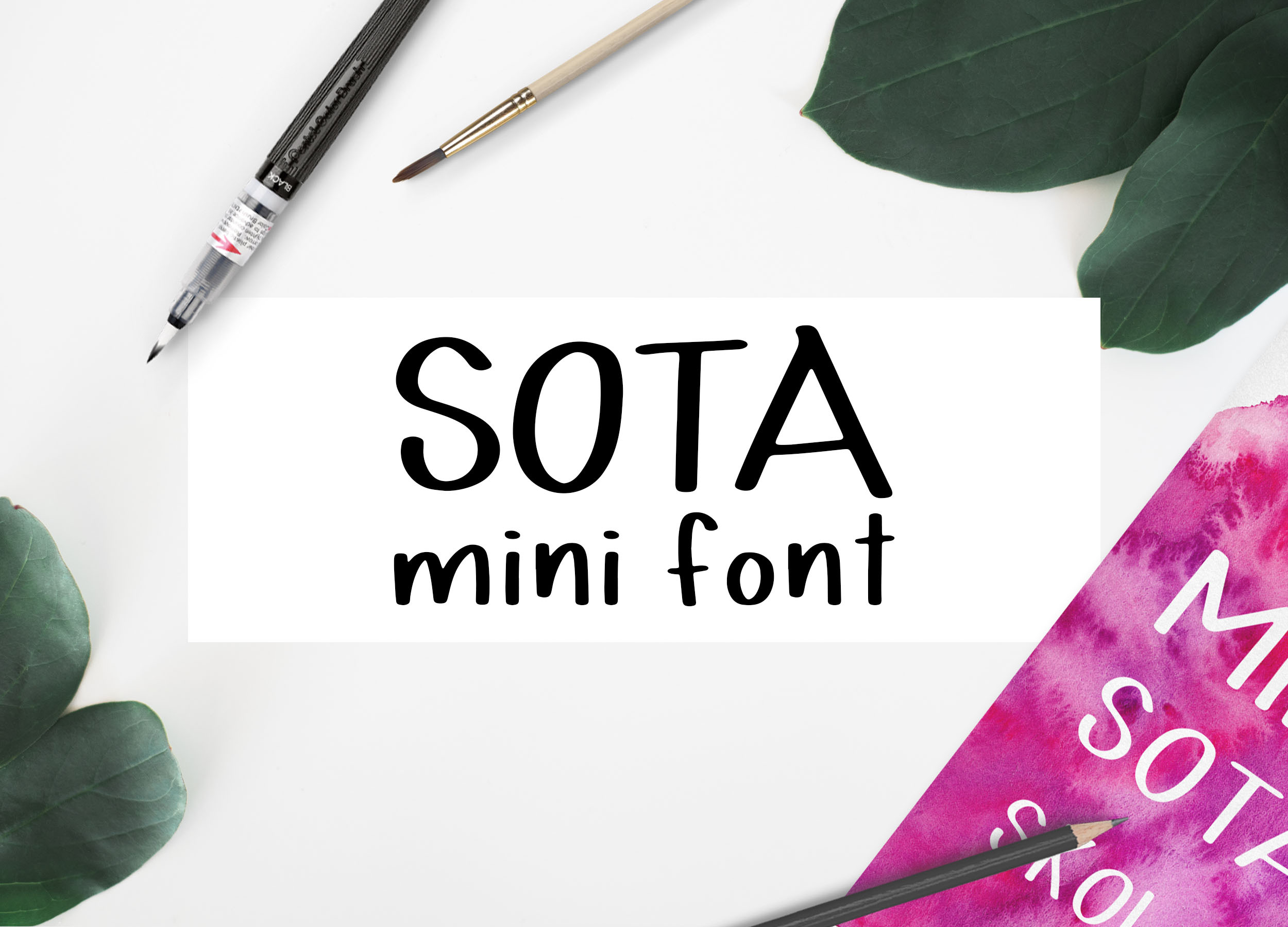
Sota Mini Font
Sota Mini Font is perfect for any project that needs a hand-made feel and can be easily paired with other fonts!
Because Sota is a mini font, it includes uppercase, lowercase, numbers, and basic english symbols. Feel free to give it a test run below!